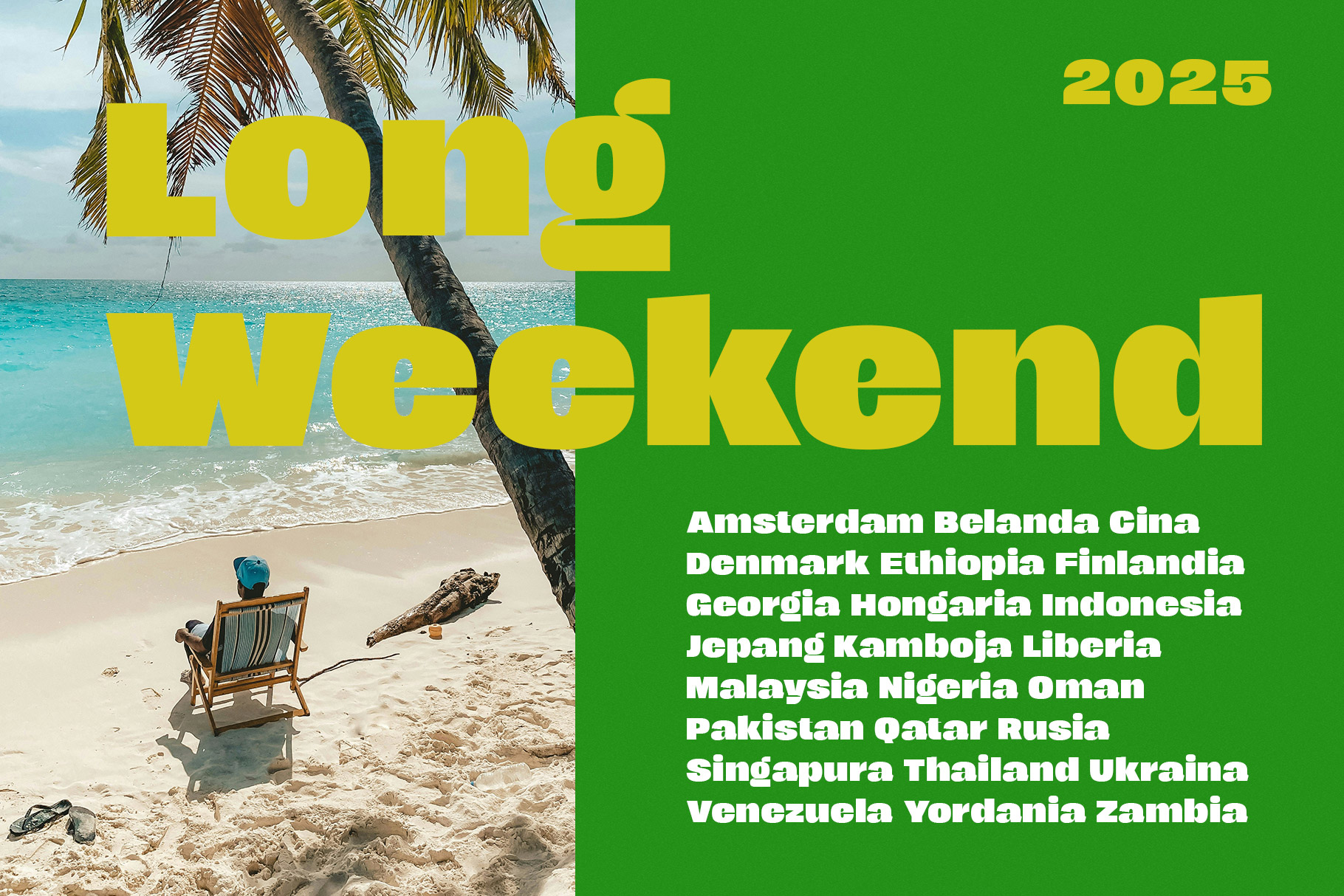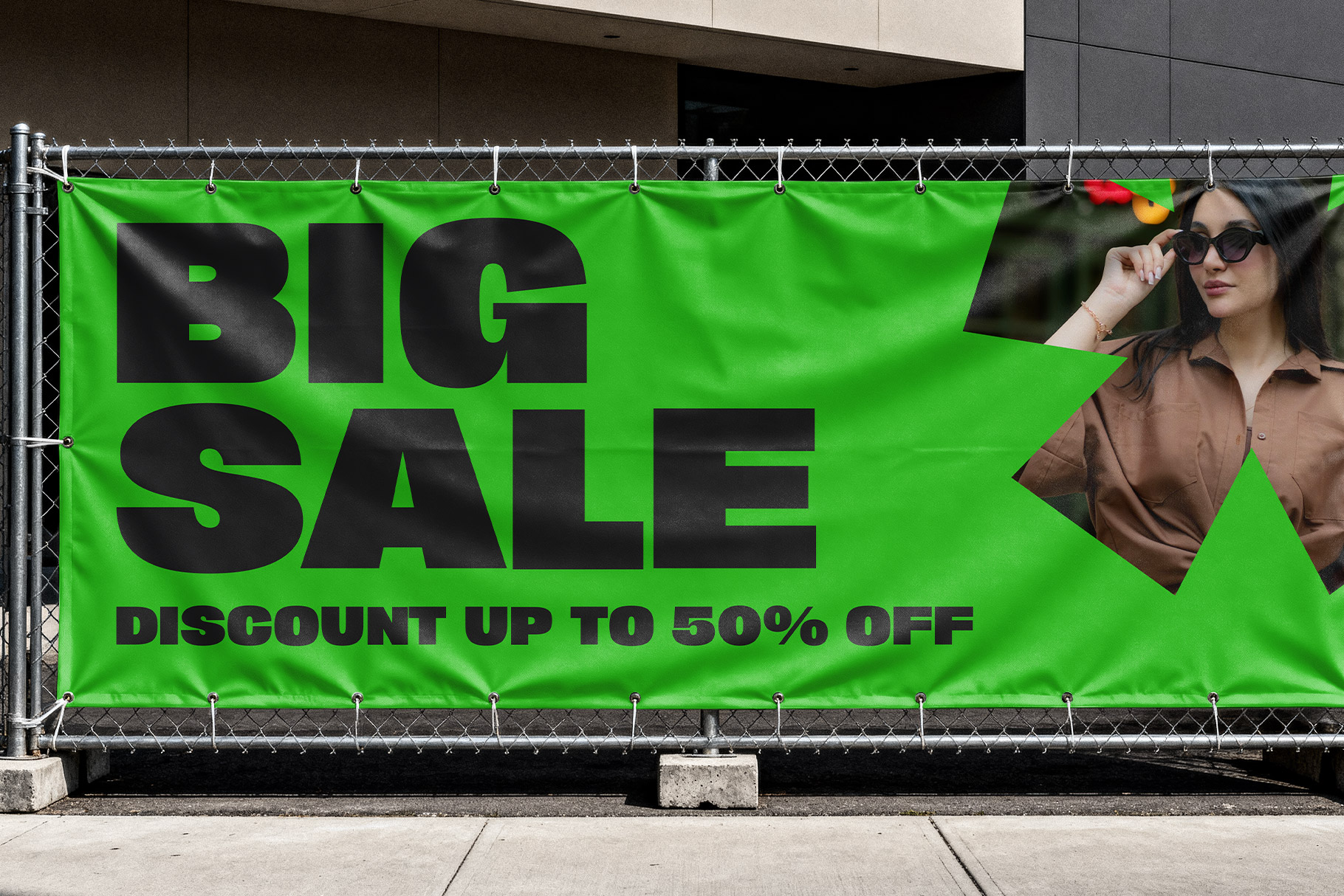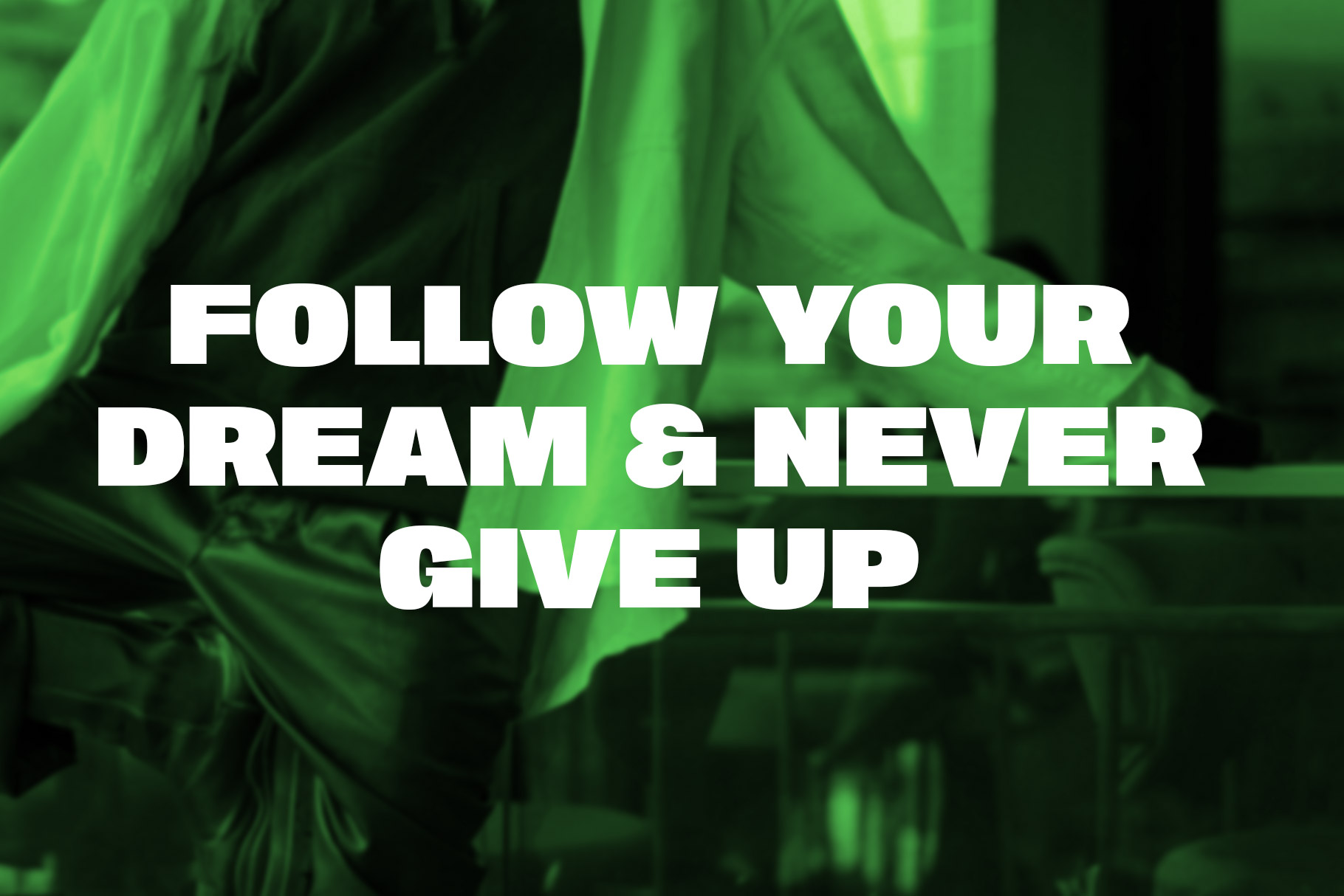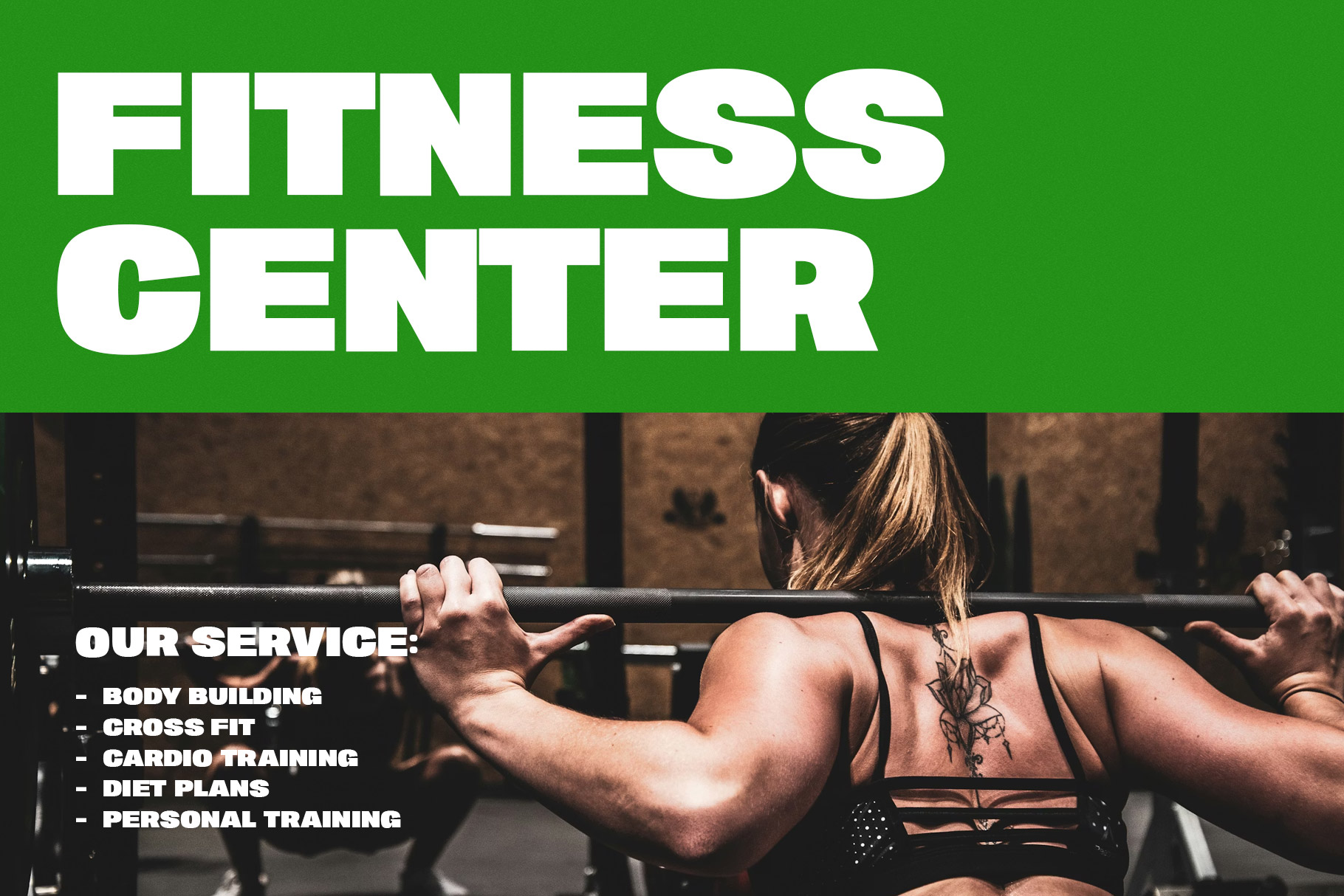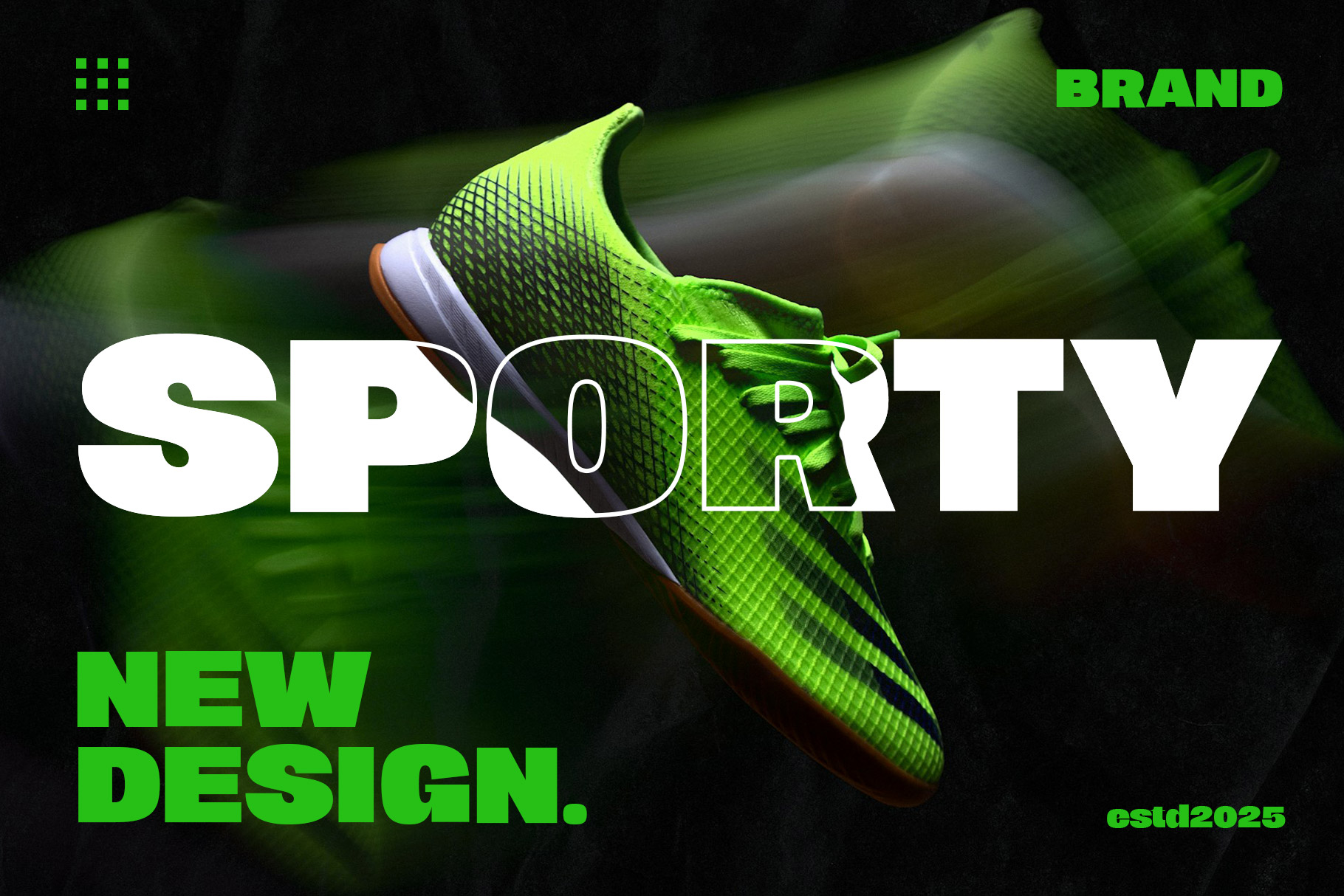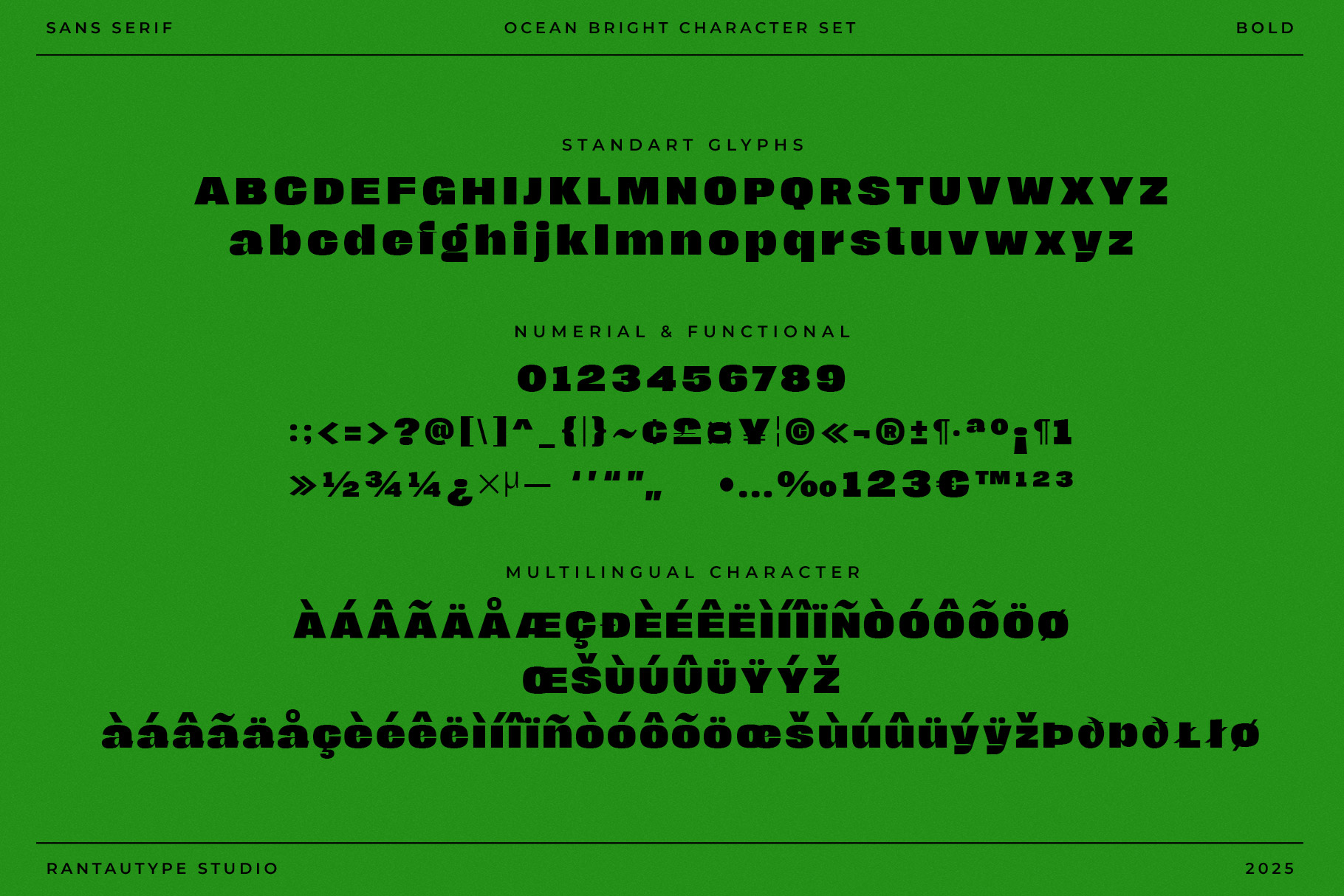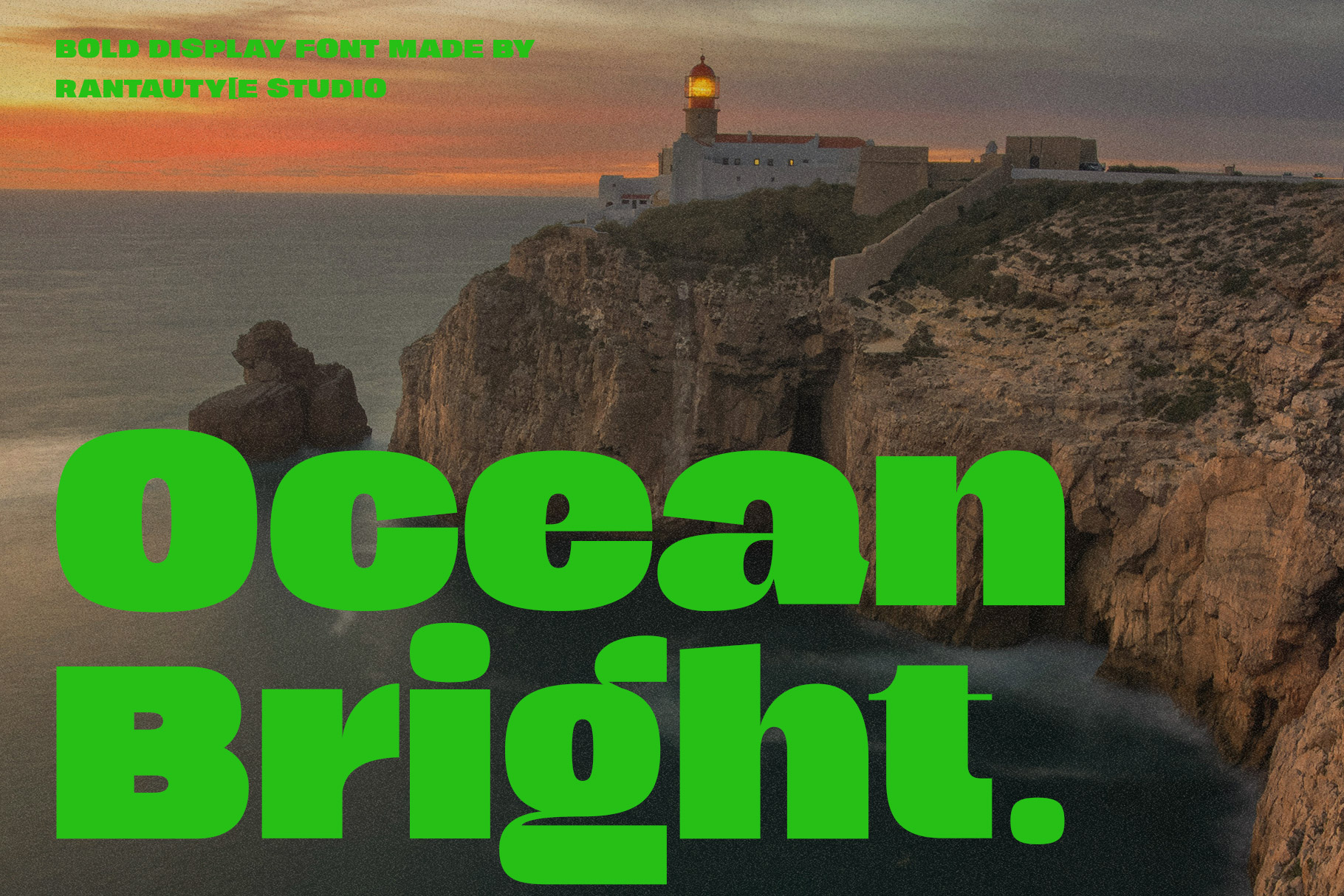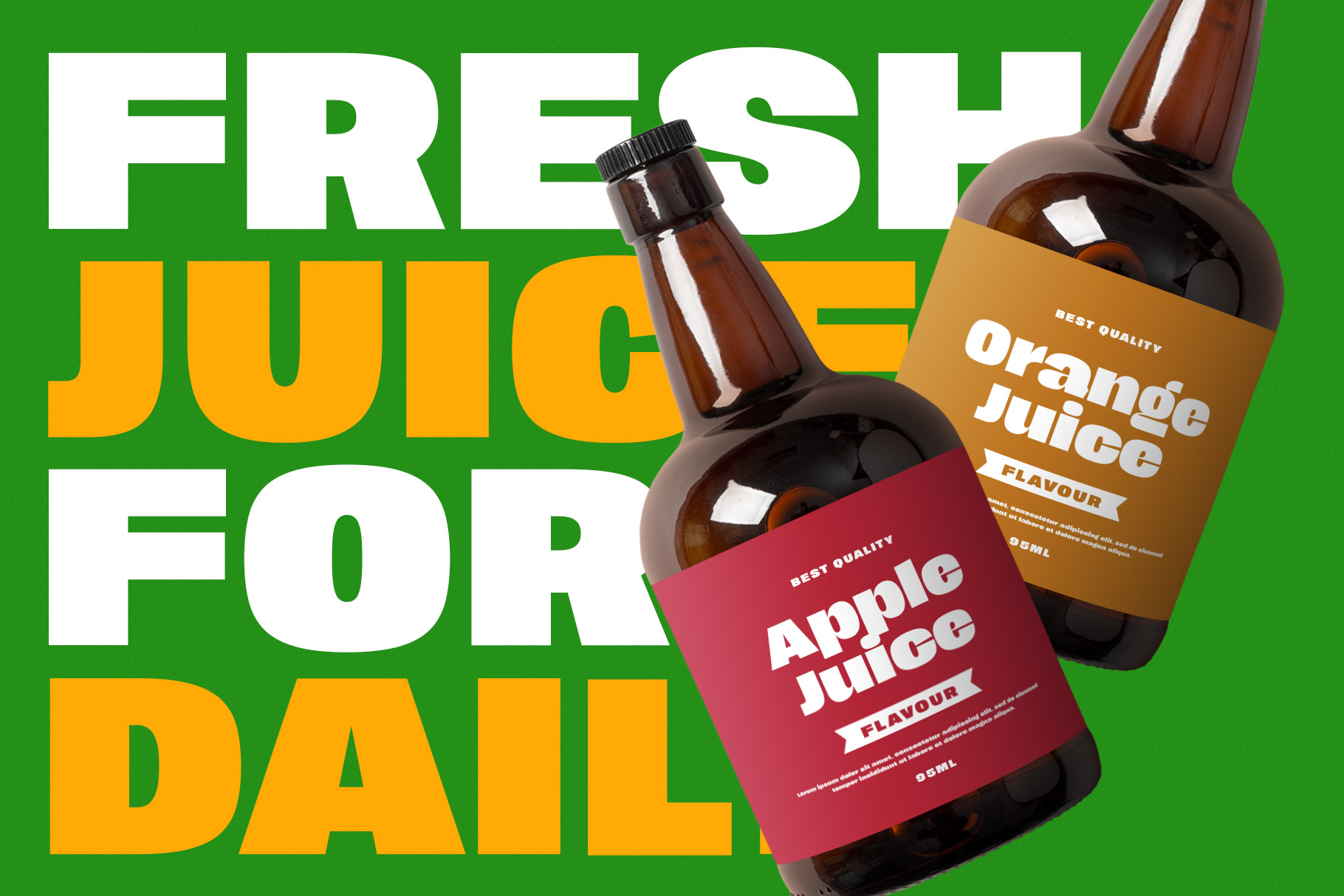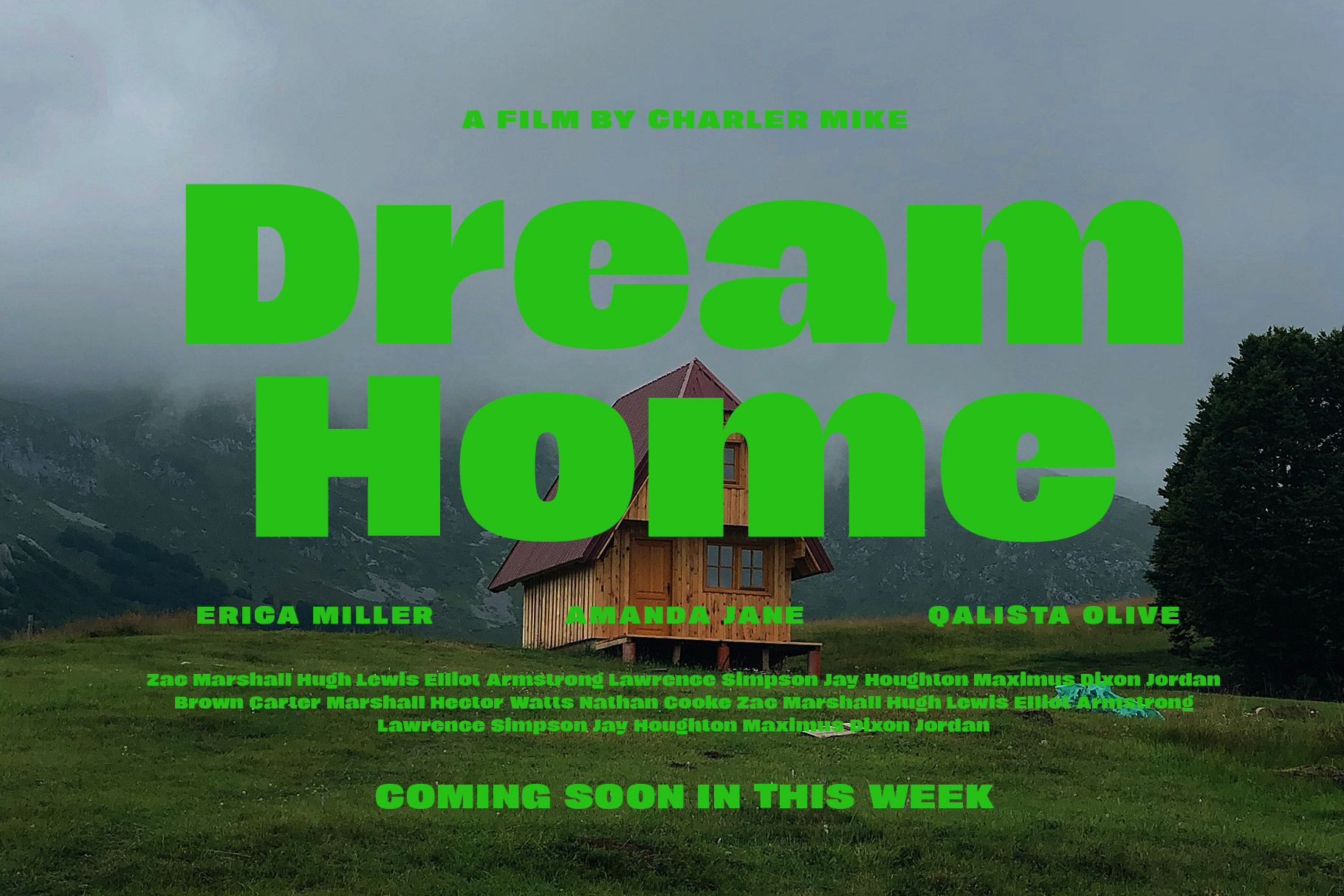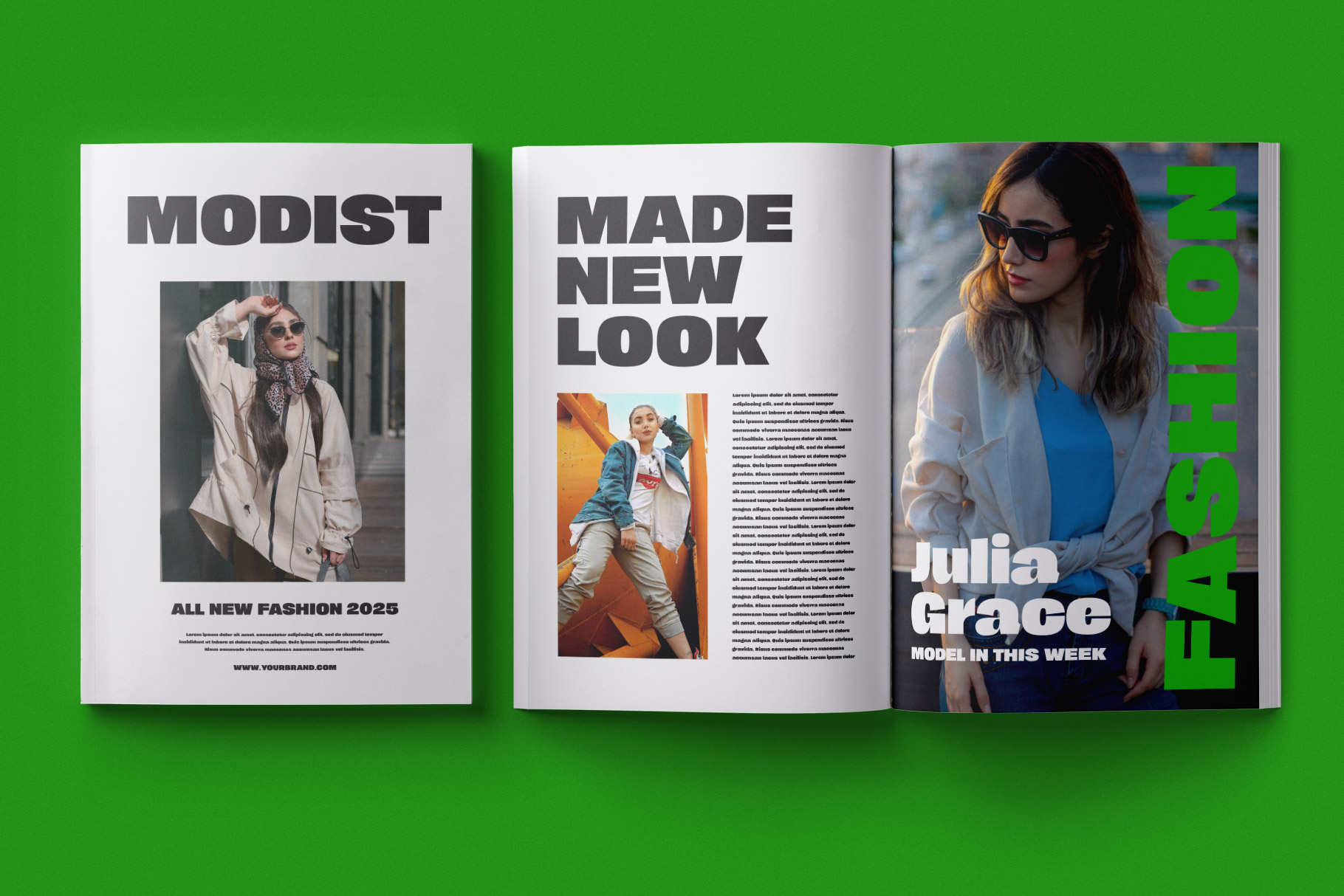
Ocean Bright Bold Display Font
Ocean Bright is the embodiment of power in typography. Ocean Bright come with confident shape despite its heavy weight, it maintains balance, rhythm, and elegance, allowing it to feel both impactful and sophisticated.
Ocean Bright is a perfectly choice for any creative endeavor, creating, modern, lifestyle design such as logotype, title, cover, branding, invitations, wedding designs, display and magazine, social media posts, advertisements, printed quotes, product packaging, corporate brand, product designs, labels, photography, watermarks, special events and any other project with retro touch.